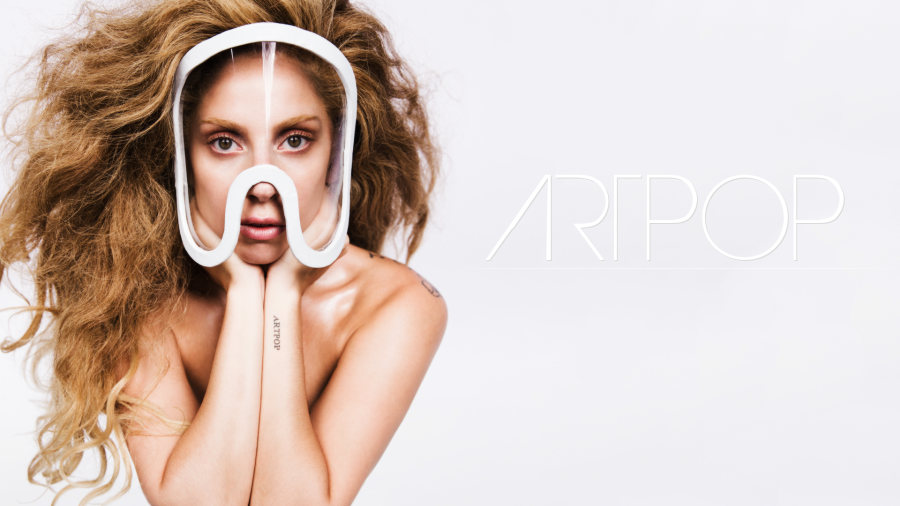
Pierre 10,480 Posted July 12, 2013 Share Posted July 12, 2013 The white one. THE SINGLE 8.19 and all that. Please :) ❝Is not blue, not turquoise, not lapis. It's actually cerulean❞. Link to post Share on other sites More sharing options...
MonsterOfSpain 8,331 Posted July 12, 2013 Share Posted July 12, 2013 I think is helvética, same font as bad romance and alejandro Link to post Share on other sites More sharing options...
U-GO-BOY 1,610 Posted July 12, 2013 Share Posted July 12, 2013 looks like arial Link to post Share on other sites More sharing options...
homomo 23,883 Posted July 12, 2013 Share Posted July 12, 2013 Is that Calbri? lol 0110100001100101011011000110110001101111 Link to post Share on other sites More sharing options...
Robin 0 Posted July 12, 2013 Share Posted July 12, 2013 Helvetica? Link to post Share on other sites More sharing options...
Chic 20,830 Posted July 12, 2013 Share Posted July 12, 2013 This is the same font as our posts Link to post Share on other sites More sharing options...
wiltedbliss 915 Posted July 12, 2013 Share Posted July 12, 2013 Helvetica Link to post Share on other sites More sharing options...
adorno 484 Posted July 12, 2013 Share Posted July 12, 2013 Helvetica - timeless and flaw-free Link to post Share on other sites More sharing options...
WheresTheDoggo 11 Posted July 12, 2013 Share Posted July 12, 2013 its actually Haettenschweiler, its the same as The Fame Monster font, i have this font on my computer The white one. THE SINGLE 8.19 and all that. Please :) hey I'm Doggo :derpga: Link to post Share on other sites More sharing options...
MonsterOfSpain 8,331 Posted July 12, 2013 Share Posted July 12, 2013 . its actually Haettenschweiler, its the same as The Fame Monster font, i have this font on my computer No it's not, you can see the R is different. It's the dame font as bad romance and Alejandro tho. And yes, it's the font in our posts Link to post Share on other sites More sharing options...
The Plague 0 Posted July 12, 2013 Share Posted July 12, 2013 its actually Haettenschweiler, its the same as The Fame Monster font, i have this font on my computerI don't think so. I remember the TFM font being called something different... and when I type in the Haettenschweiler font it comes out like this:THE SINGLE 8.19 PRE-ORDER THE ALBUM/APP 9.1 Link to post Share on other sites More sharing options...